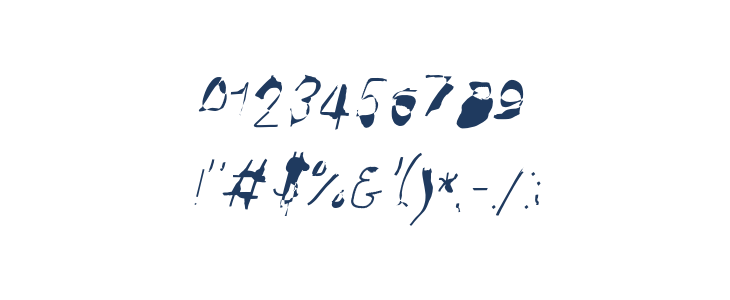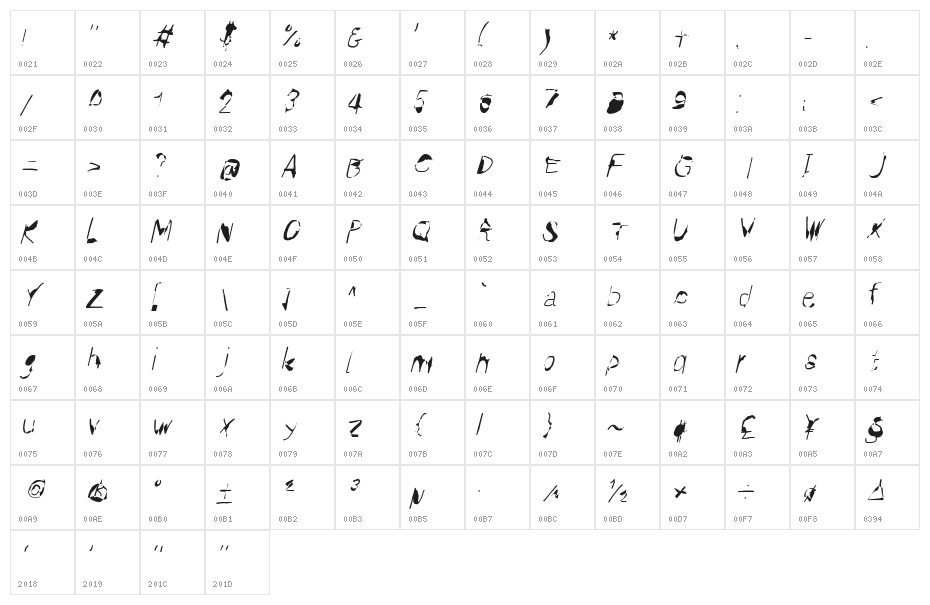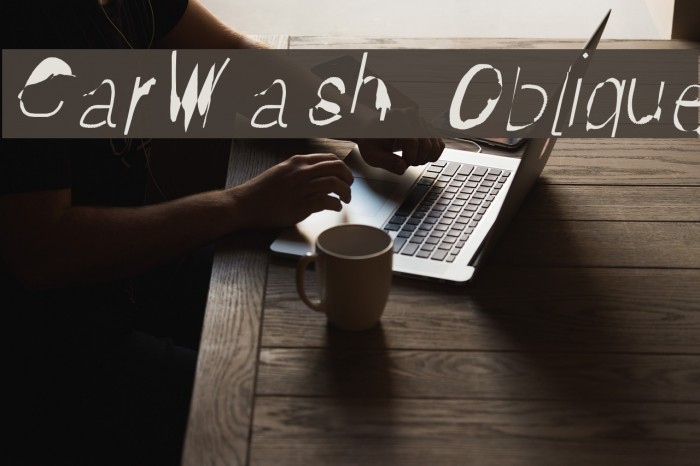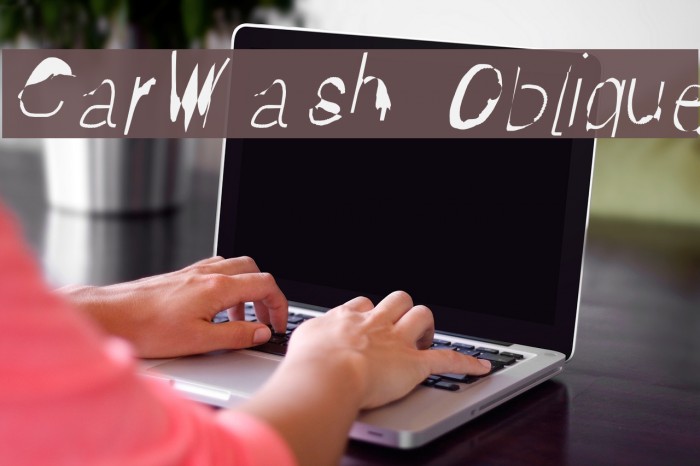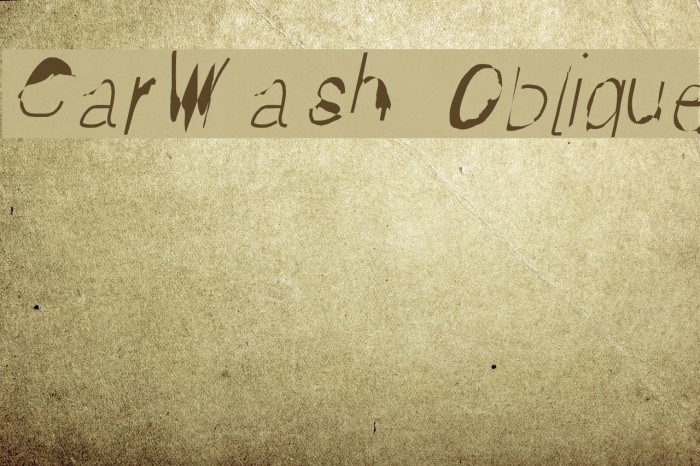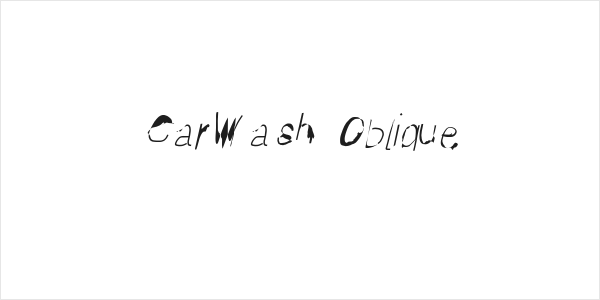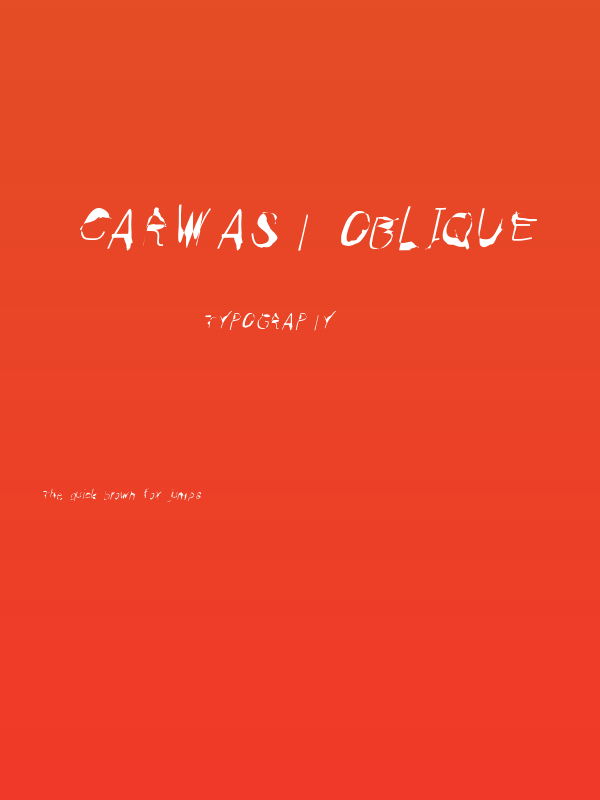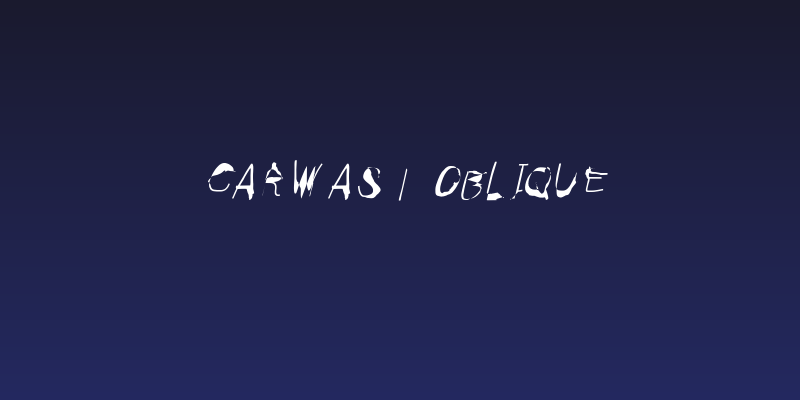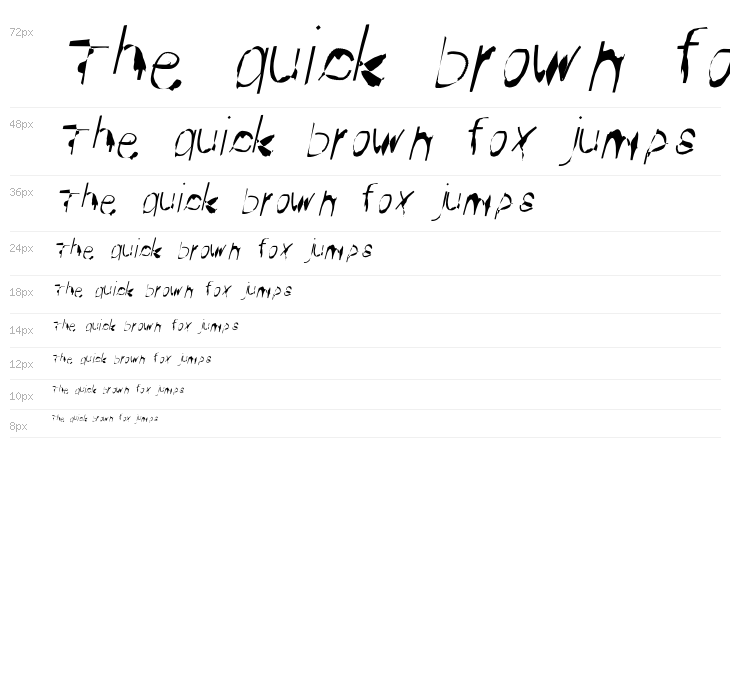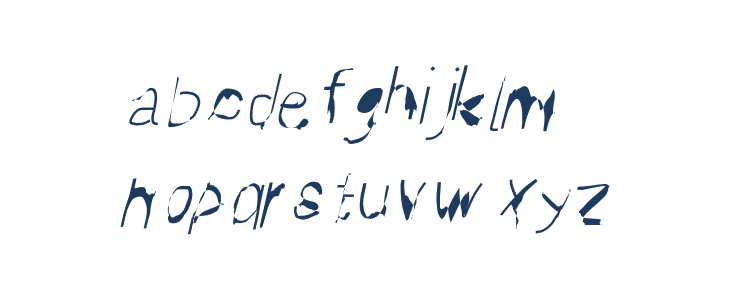
CarWash Oblique Font
CarWash Oblique Description
This font features an energetic and dynamic style, characterized by its oblique and distorted letterforms. The strokes are irregular and appear as if they have been brushed or splattered, giving it a chaotic yet artistic feel. The uppercase and lowercase letters maintain a consistent slant, enhancing the sense of movement. Numbers and special characters follow the same design principles, contributing to a cohesive and expressive typeface. The overall appearance is bold and impactful, suitable for creative and unconventional projects.
| Proposed Projects | Ideal for edgy branding, music album covers, street art-inspired designs, and creative posters. |